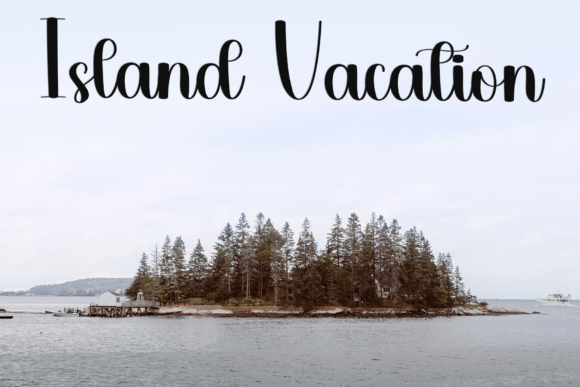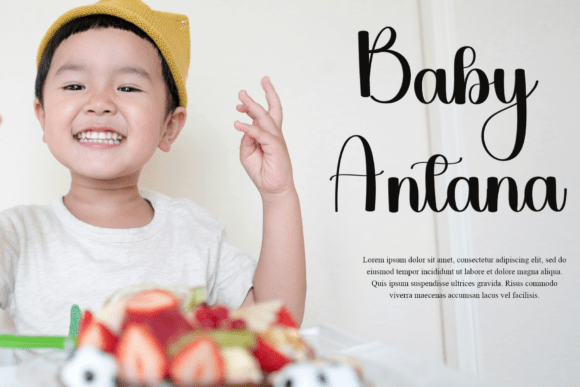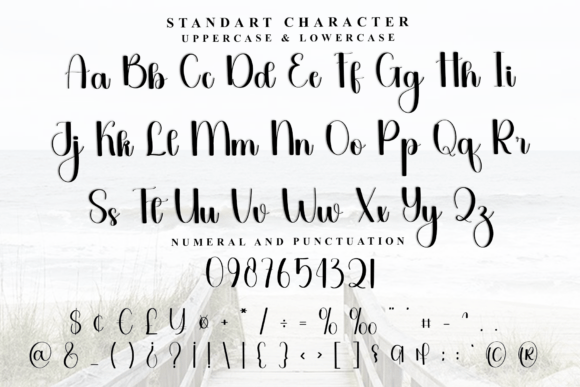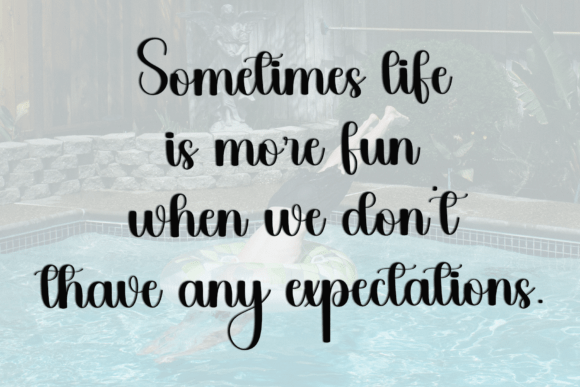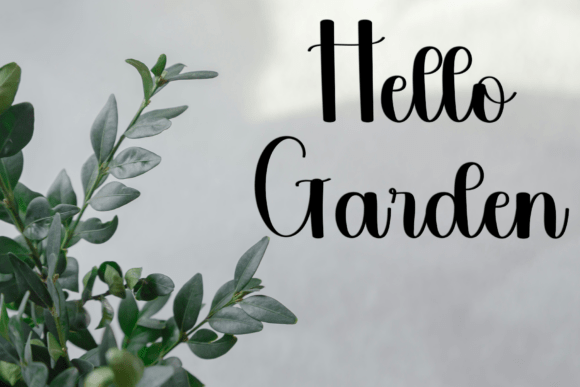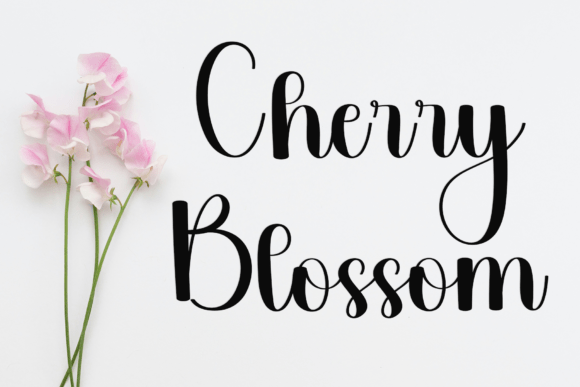
Introducing Heavenly Font: The Ultimate Holiday Typeface
Are you looking for a font that embodies the magic and wonder of the holiday season? Look no further than Heavenly Font, a festive and merry typeface designed to capture the spirit of Christmas and add a touch of enchantment to your designs. With its decorative elements and whimsical flair, this font is perfect for greeting cards, gift tags, and holiday-themed projects.
Heavenly Font is a beautifully crafted typeface that exudes a cheerful and nostalgic ambiance. Its unique design elements, such as intricate swirls and flourishes, evoke a sense of wonder and magic, making it ideal for creating holiday-themed designs that stand out. Whether you’re a designer, crafter, or DIY enthusiast, this font is sure to become your go-to choice for all your holiday projects.
Heavenly Font is specifically designed for use in holiday-themed projects, such as:
- Greeting cards: Create personalized and festive greeting cards that will make your loved ones feel special.
- Gift tags: Add a touch of elegance and whimsy to your gift tags, making them perfect for presents, gift baskets, and more.
- Holiday-themed projects: Use Heavenly Font to create festive and eye-catching designs for social media, blogs, and websites.
Why Choose Heavenly Font?
So, why should you choose Heavenly Font for your holiday projects? Here are just a few reasons:
- Unique and festive design: Heavenly Font’s decorative elements and whimsical flair make it stand out from other fonts.
- Versatility: Heavenly Font can be used in a variety of holiday-themed projects, from greeting cards to social media graphics.
- Nostalgic ambiance: The font’s design evokes a sense of nostalgia and cheer, making it perfect for creating holiday designs that feel warm and inviting.
Tips for Using Heavenly Font
To get the most out of Heavenly Font, here are a few tips:
- Experiment with different sizes and colors to find the perfect combination for your design.
- Use the font’s glyphs and ligatures to add visual interest and create unique designs.
- Pair Heavenly Font with other fonts to create a unique and eye-catching design.
- Don’t be afraid to get creative and try new things – Heavenly Font is designed to inspire your holiday designs!
Heavenly Font is the perfect addition to any designer’s or crafter’s toolkit. With its festive and merry design, PUA encoding, and versatility, this font is sure to become your go-to choice for all your holiday projects. Whether you’re creating greeting cards, gift tags, or social media graphics, Heavenly Font is the perfect way to add a touch of magic and wonder to your designs. So why wait? Download Heavenly Font today and let your typography shine with the magic of this beautiful font!